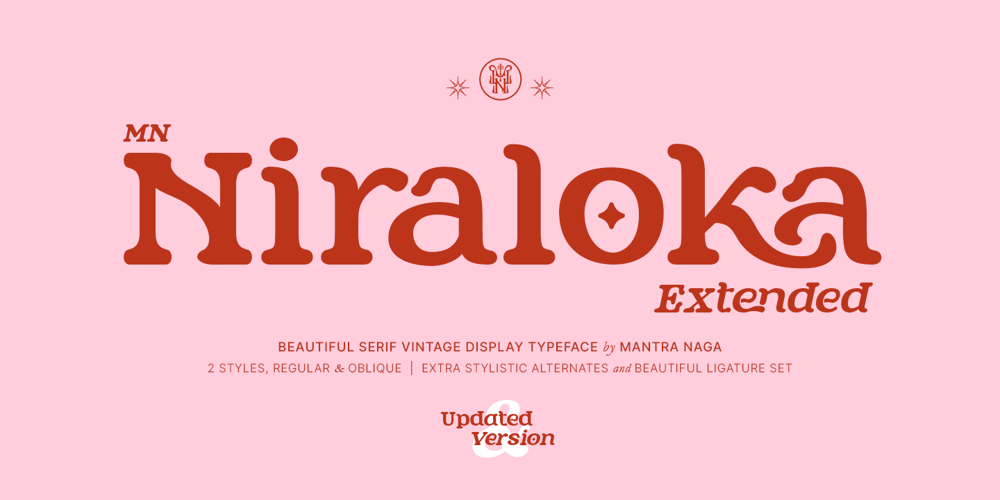
MN Niraloka Extended Font Family was designed by Fredo Eka Pratama and published by Mantra Naga Studio. MN Niraloka Extended contains 2 styles and family package options. MN Niraloka Extended font is an update from its previous version, offering more characters and OpenType features to enhance the beauty of letter design. Inspired by the Cooper font style, it features rounded serifs that exude a friendly, relaxed, flexible, and easily applicable vibe across various media. With its unique characteristics, MN Niraloka Extended is an ideal choice to add a captivating aesthetic touch to your design projects.